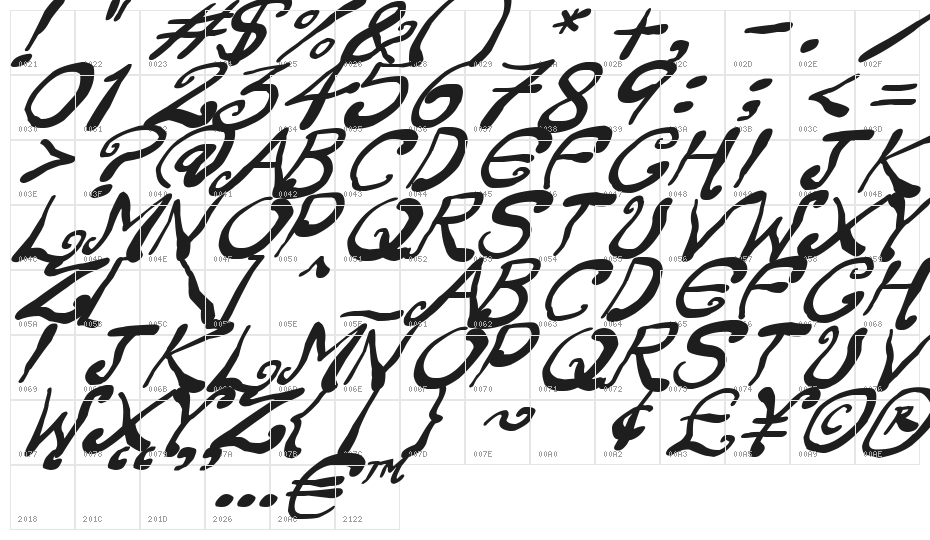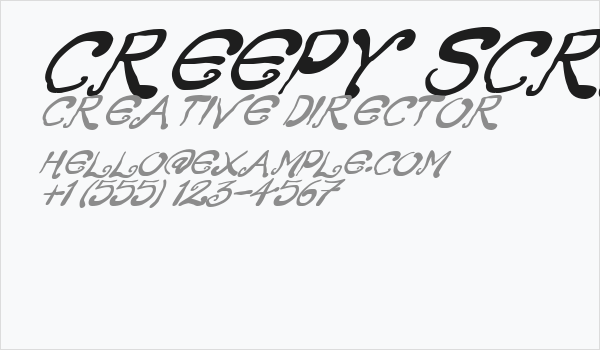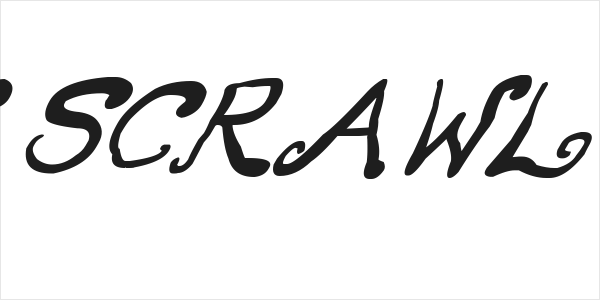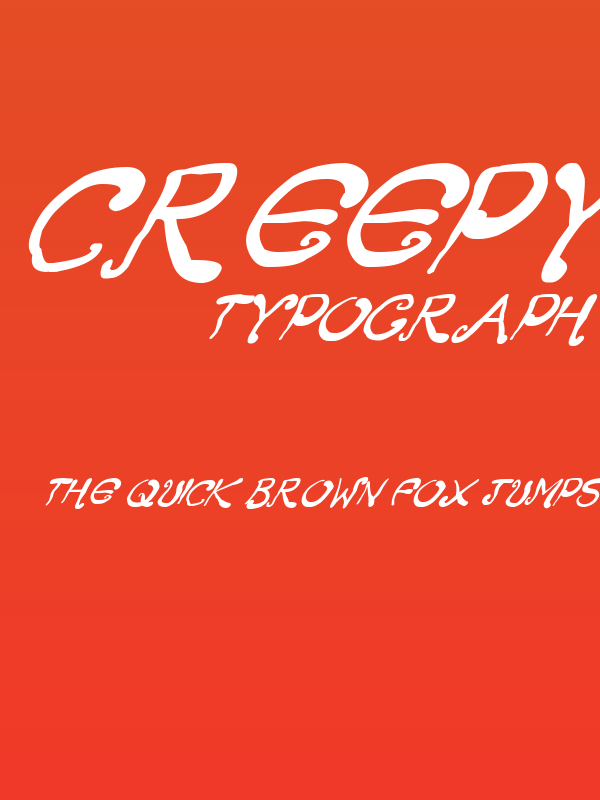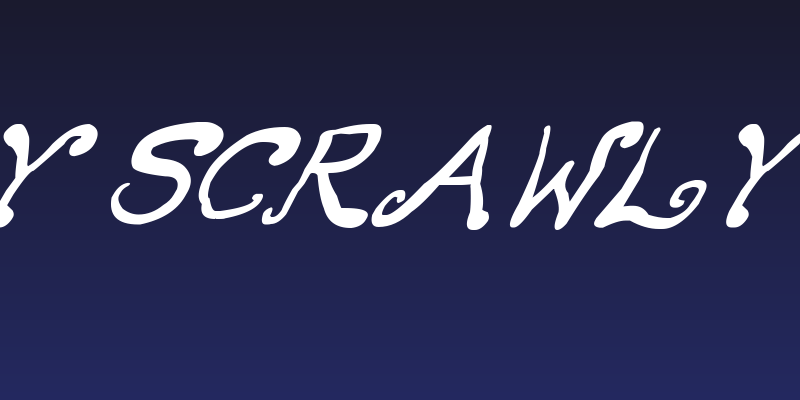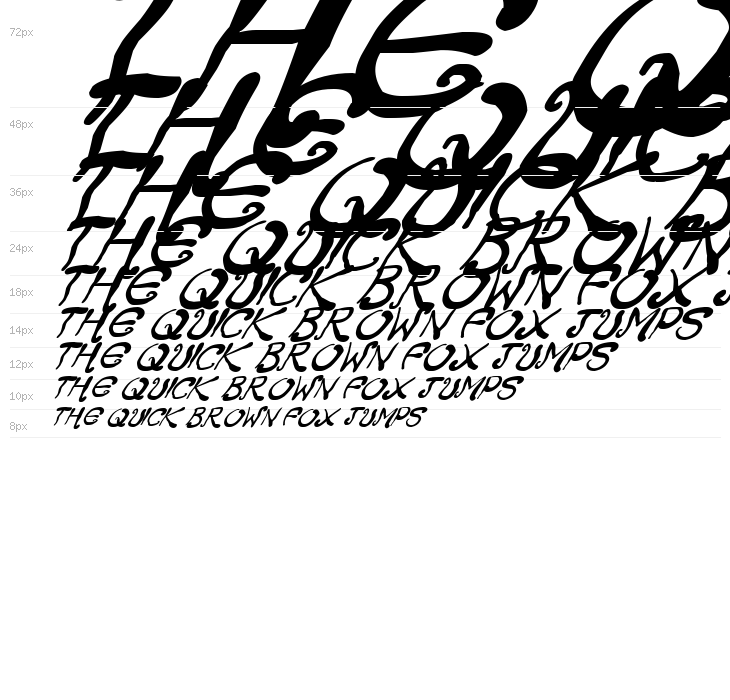
Creepy Scrawly Italic Font
Creepy Scrawly Italic Description
This font features a unique, eerie style with a scrawled, handwritten appearance. The letters are italicized, with exaggerated curves and sharp edges that give it a spooky, unsettling vibe. The strokes are bold and fluid, creating a sense of movement and energy. The uppercase and lowercase letters maintain a consistent style, with the numerals and special characters following suit. This font is perfect for projects that require a touch of the macabre or mysterious, such as Halloween-themed designs or horror movie posters.
| Proposed Projects | Ideal for Halloween designs, horror movie posters, spooky invitations, and themed event signage. |